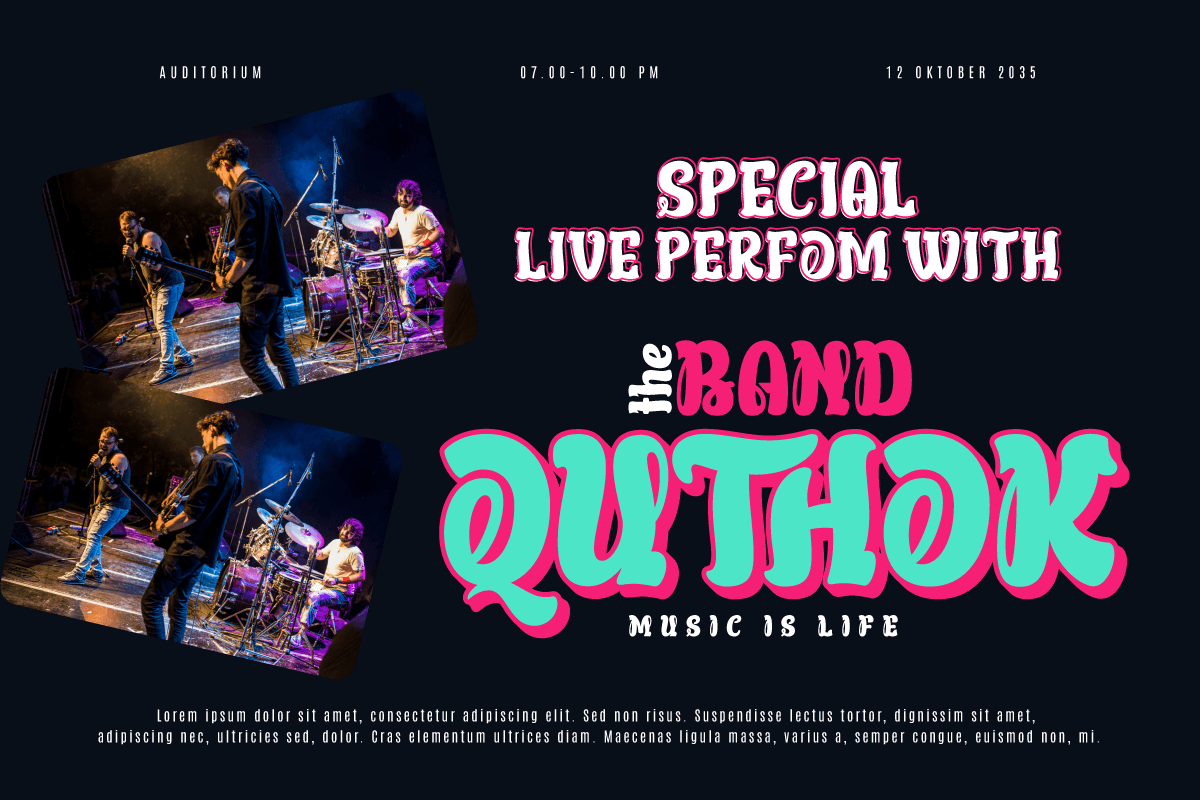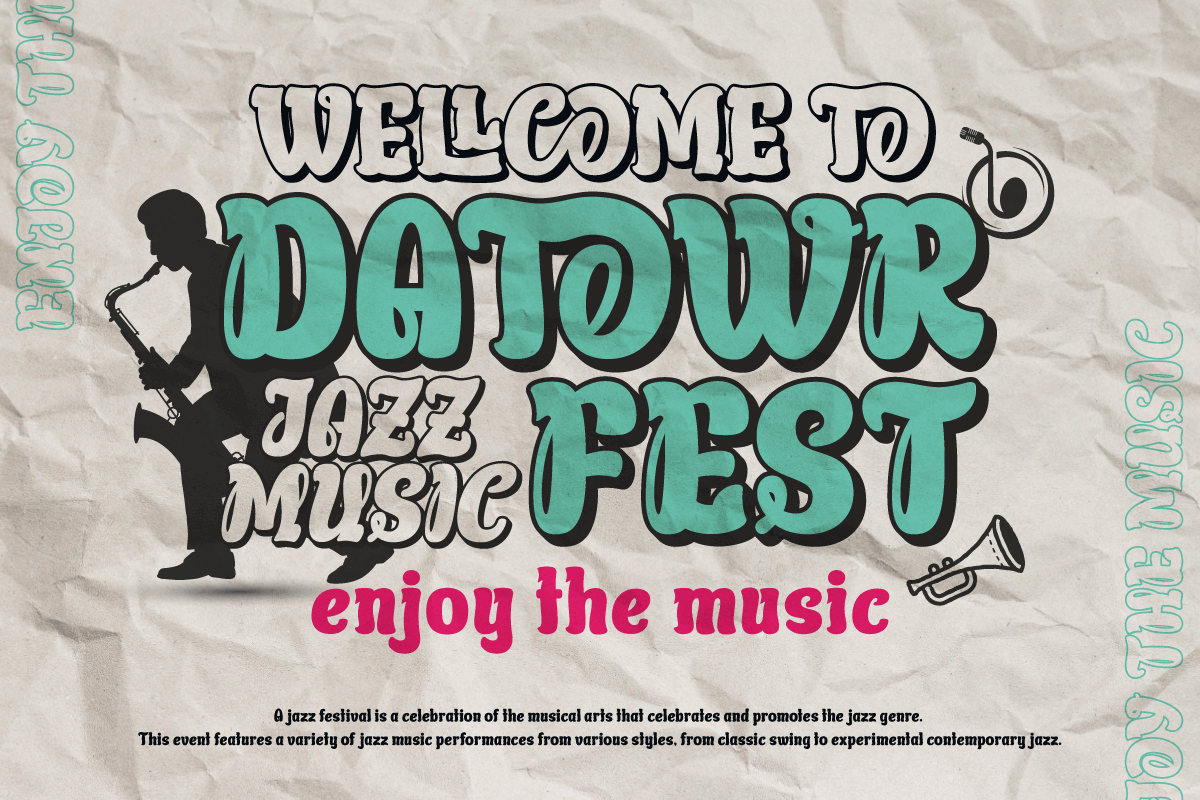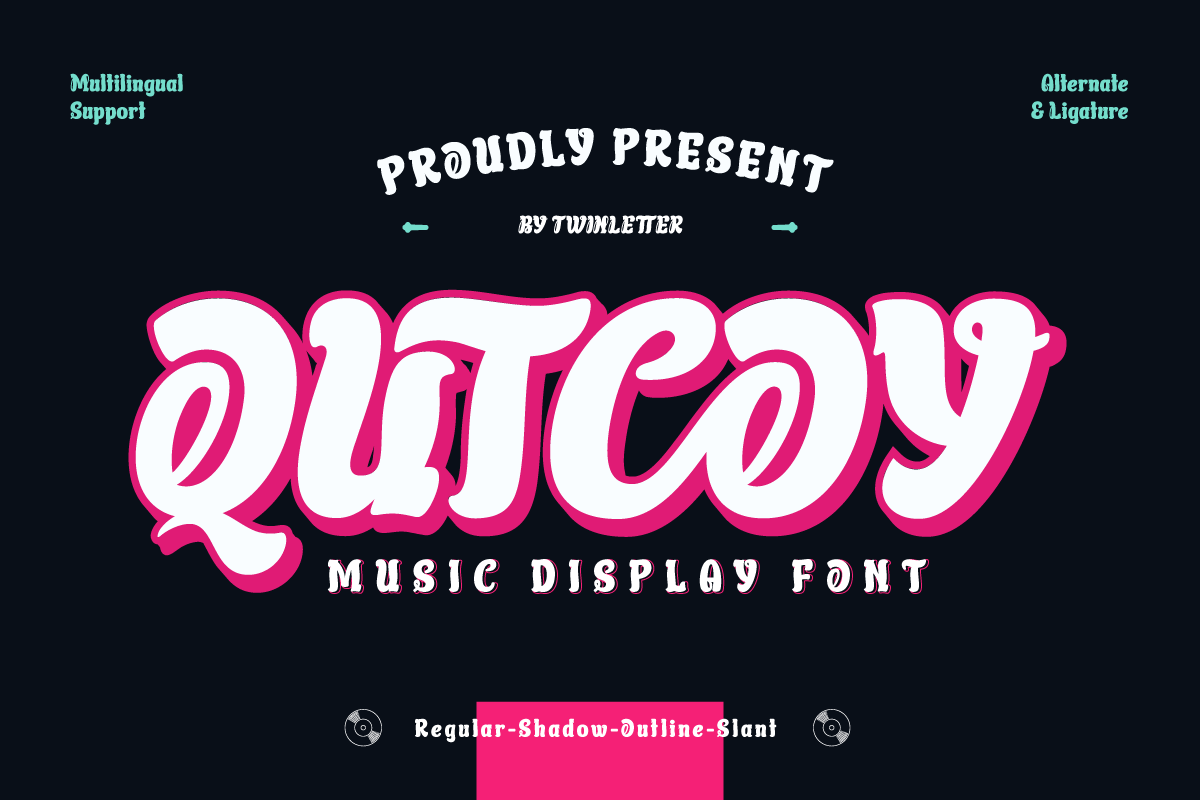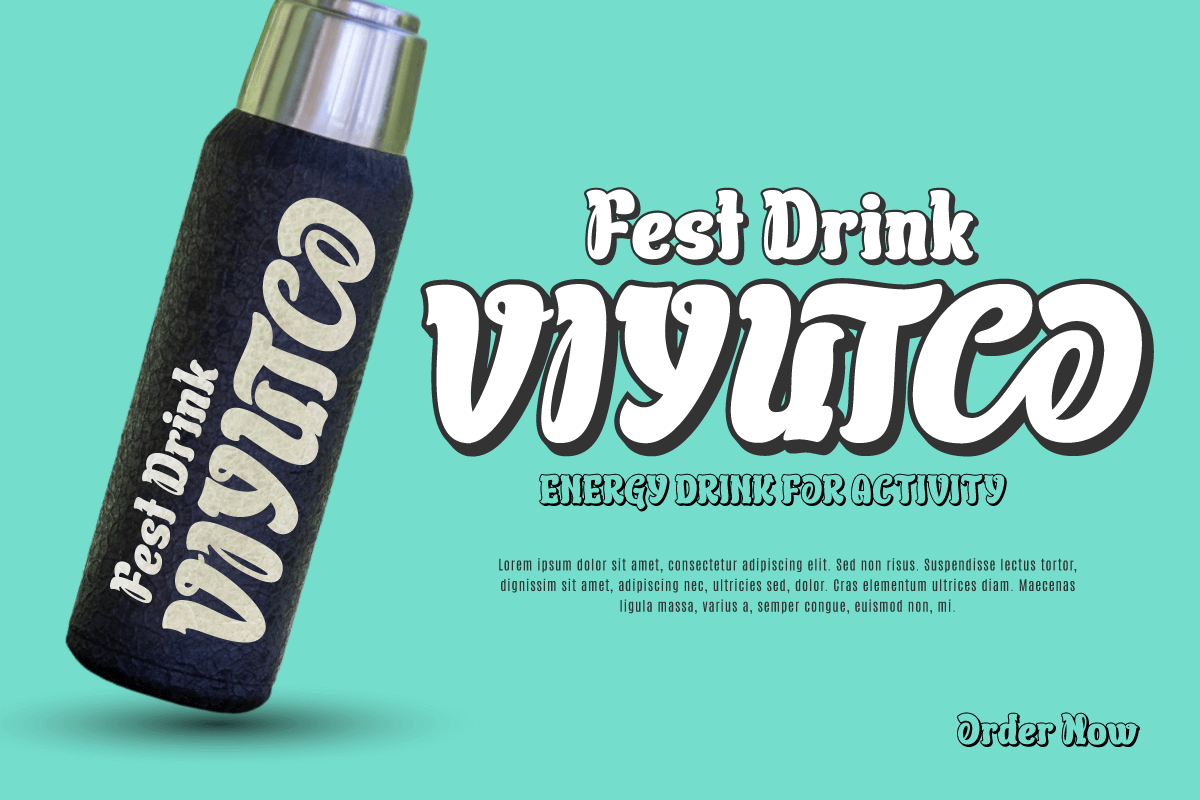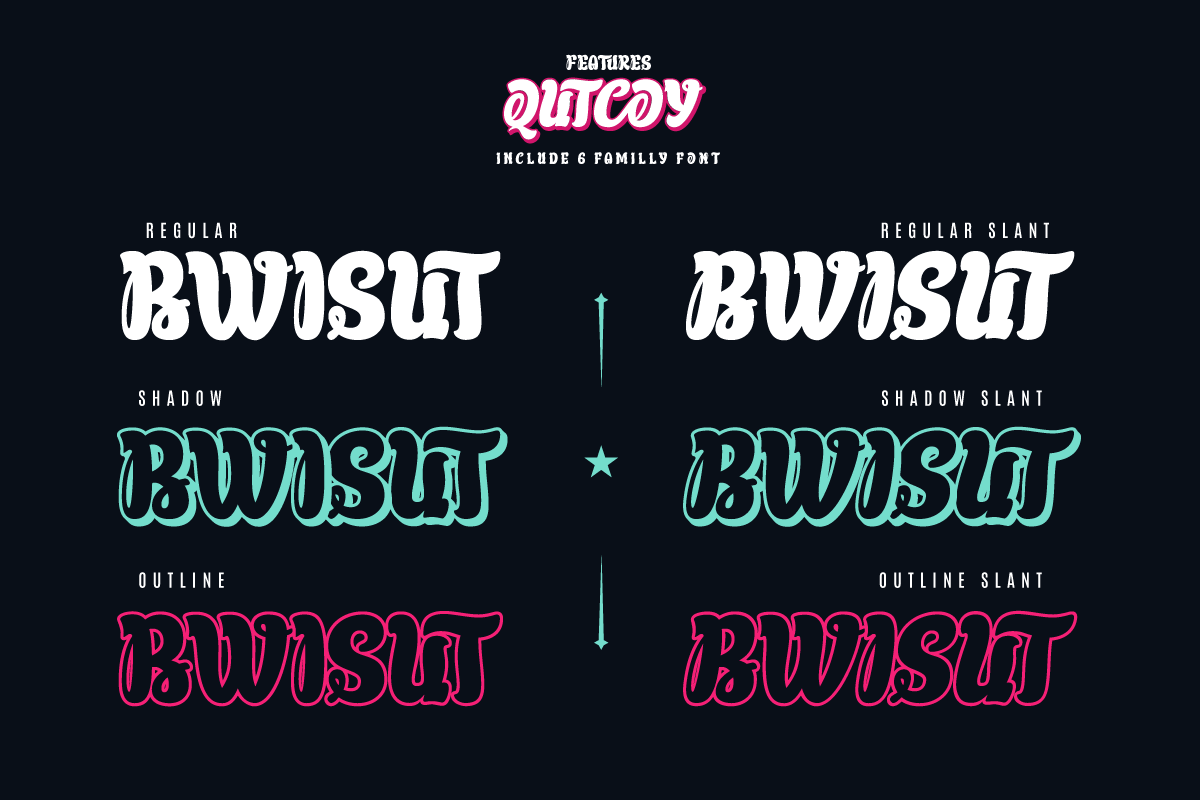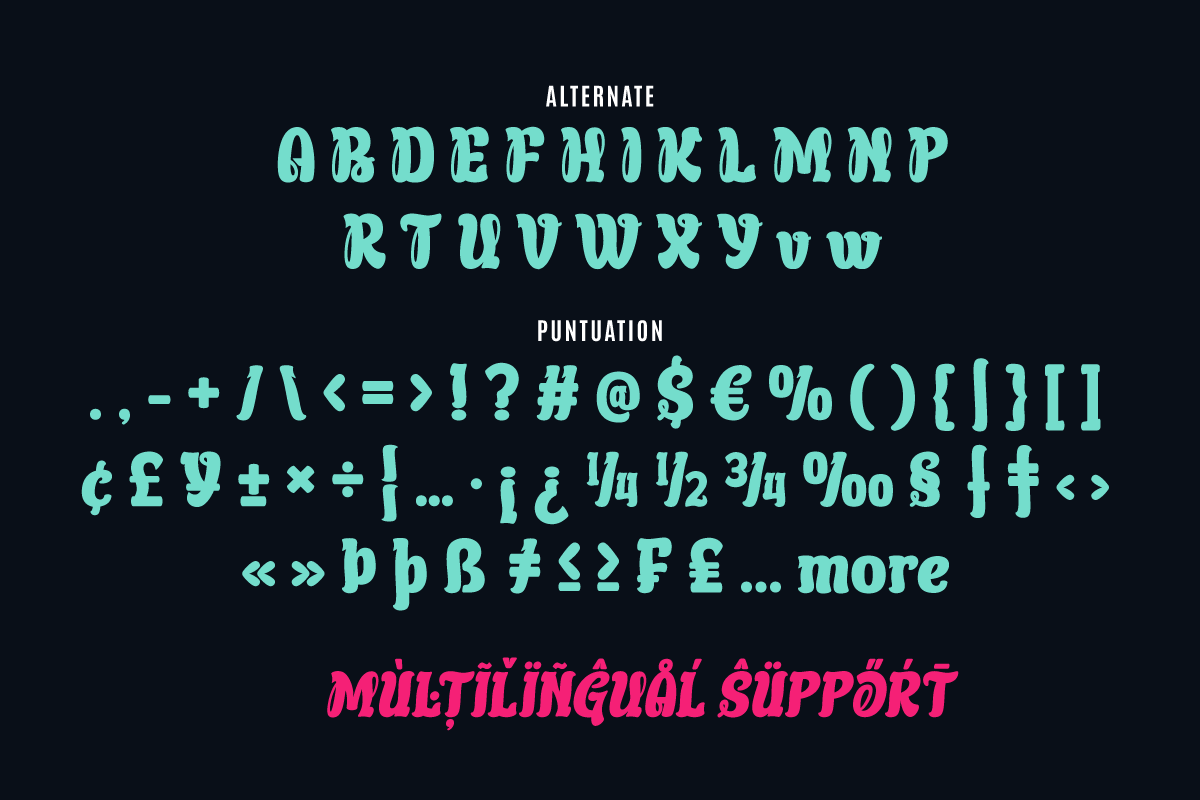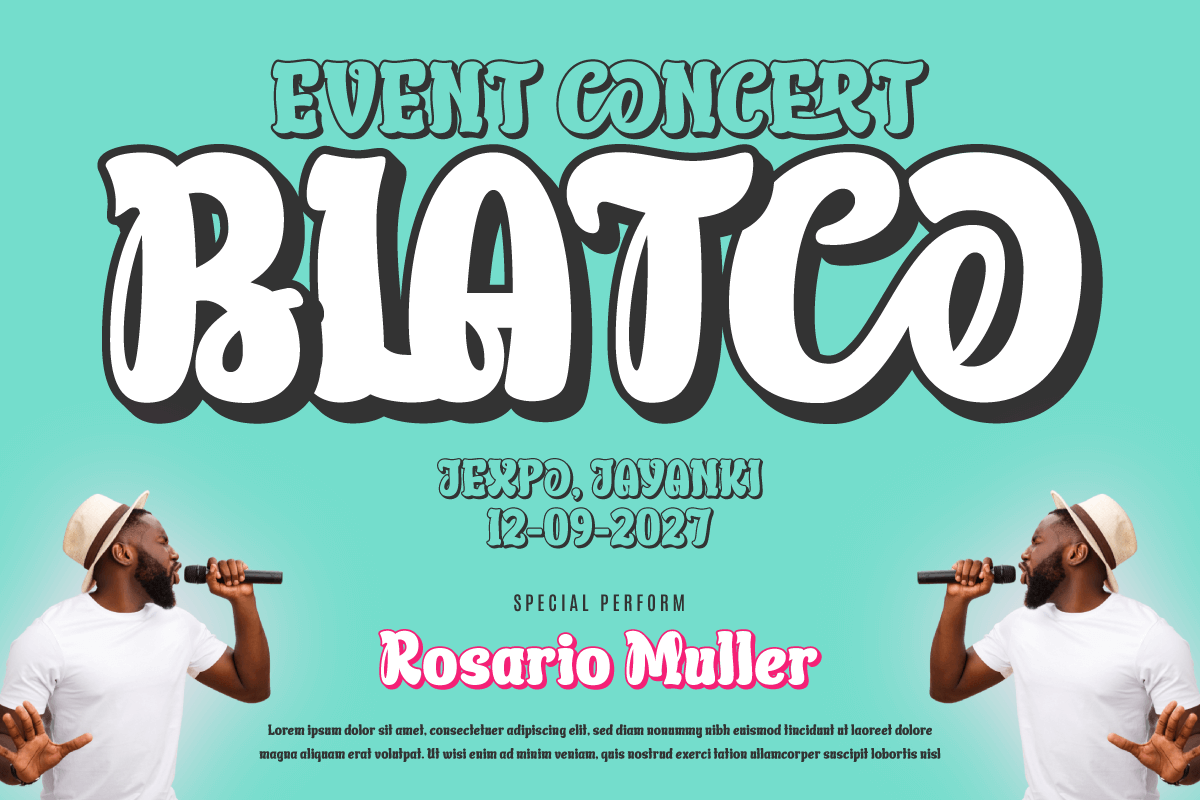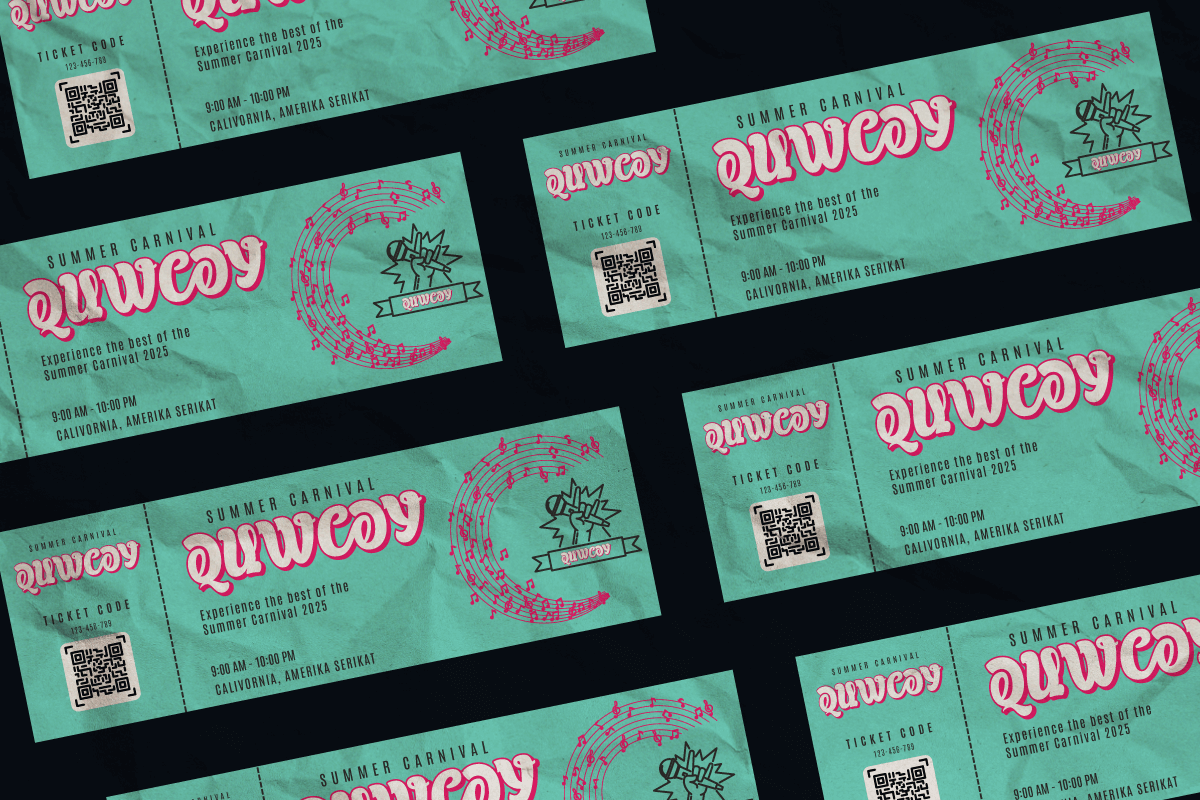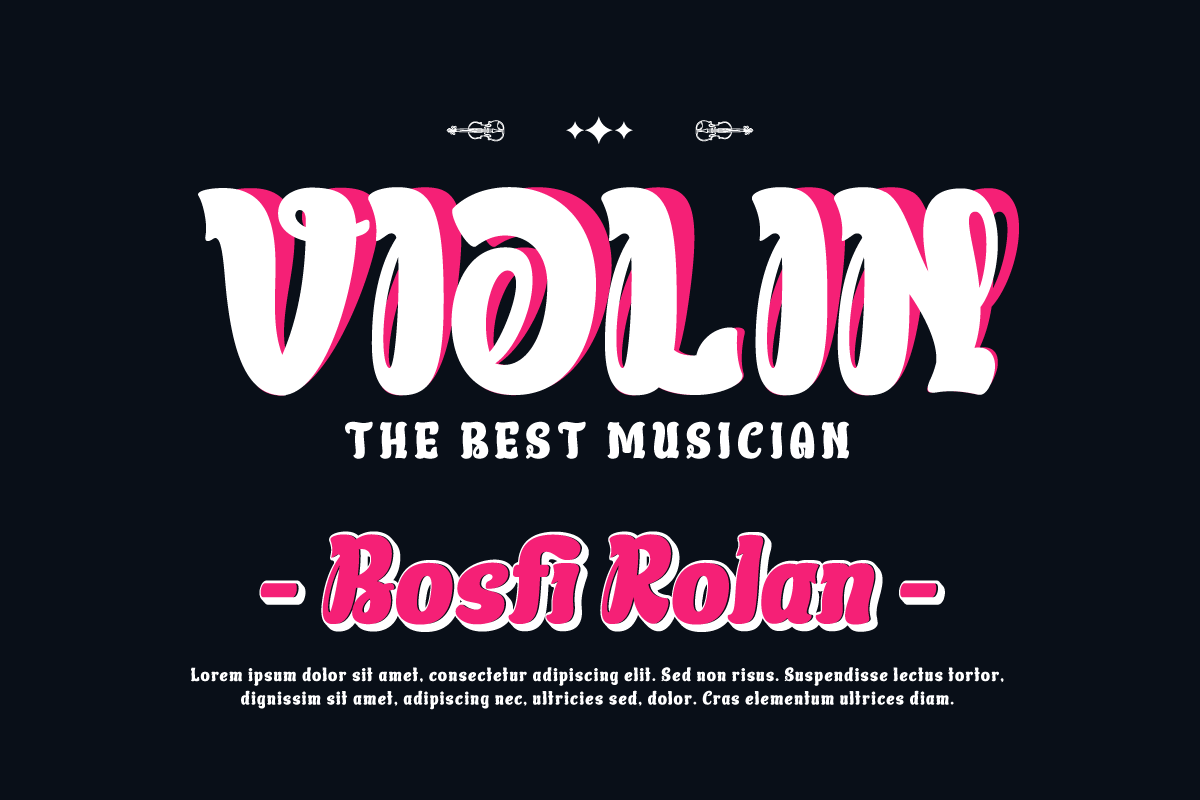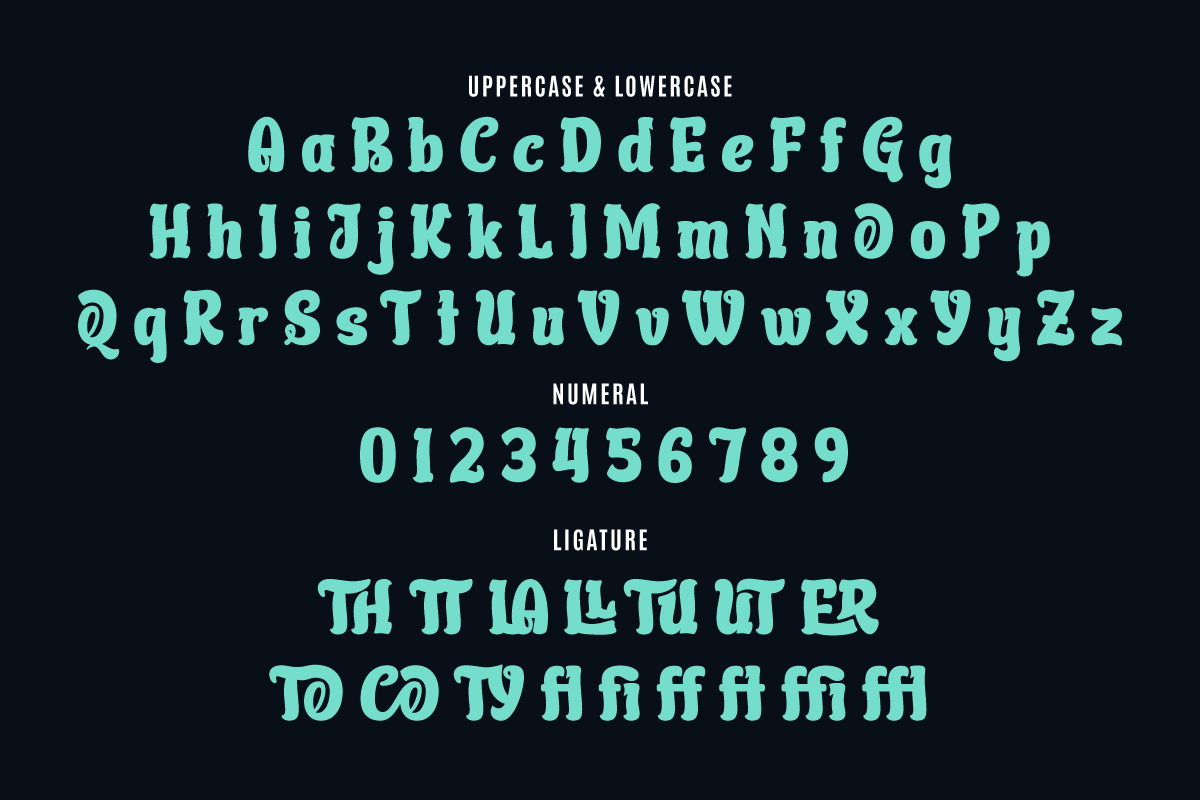
Qutcoy - Display Font
Qutcoy, a symphony-like font, provides visual harmony for musical projects and beyond. With his special touch, Qutcoy provides the tactility of the music you hear through stunning visuals.
Qutcoy's Regular style is a beautiful stain that flows like a heartfelt melody. Each letter is a note in the design score, forming an elegant and charming composition.
However, like an orchestra that combines different instruments, Qutcoy has much more to offer. This font seems to bring the melody to the surface by stepping into Outline. Bold contours add extra dimension and are an invaluable choice for a striking look.
Digging deeper, Qutcoy presents the Shadow style. Like stage lights highlighting each character, these shadows add drama to your design, creating a stunning visual effect.
Qutcoy is a typographic symphony that brings the inspiration and beauty of music into your designs. With a wide selection of styles, this font is ready to become part of your unforgettable visual story.